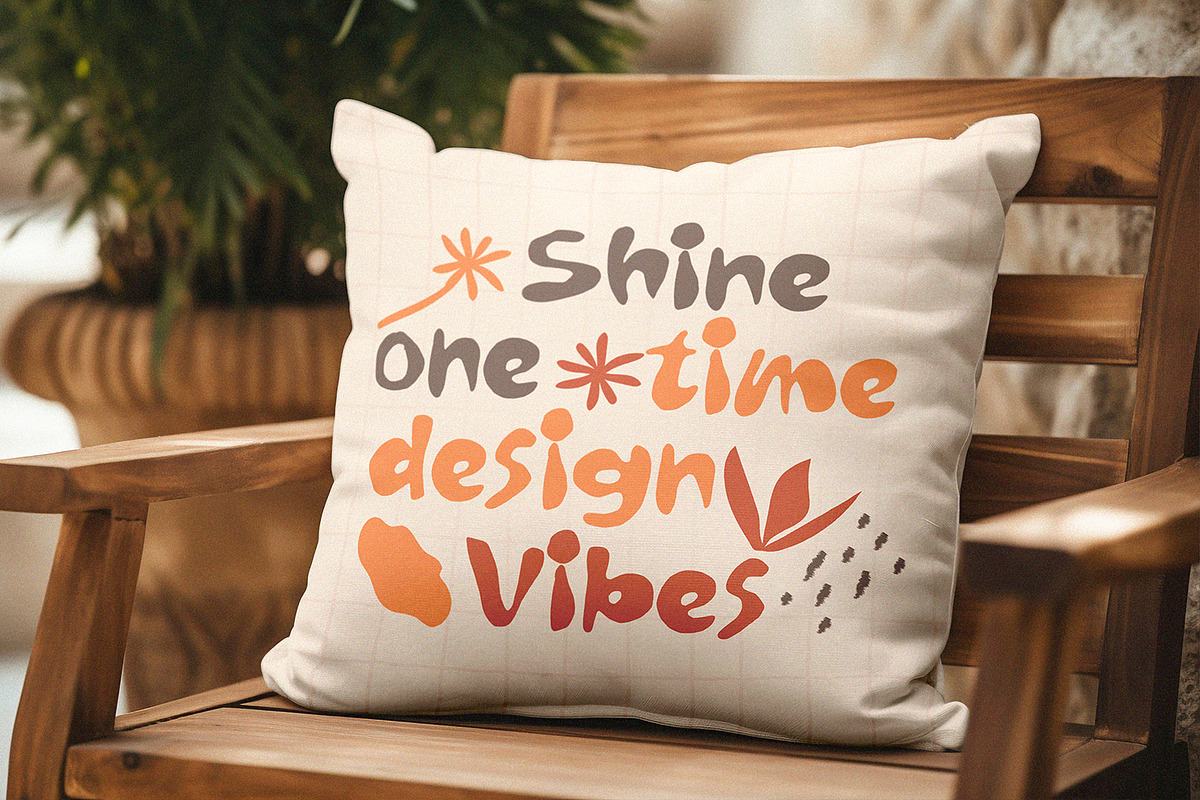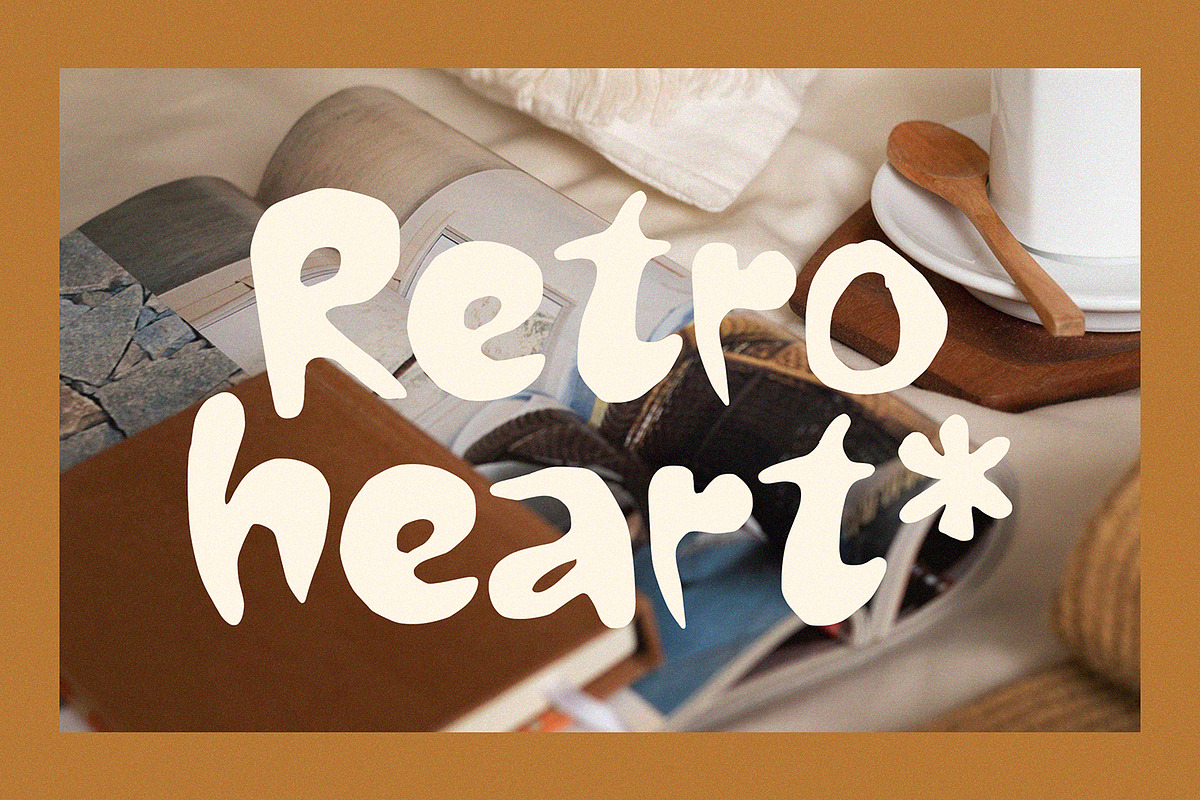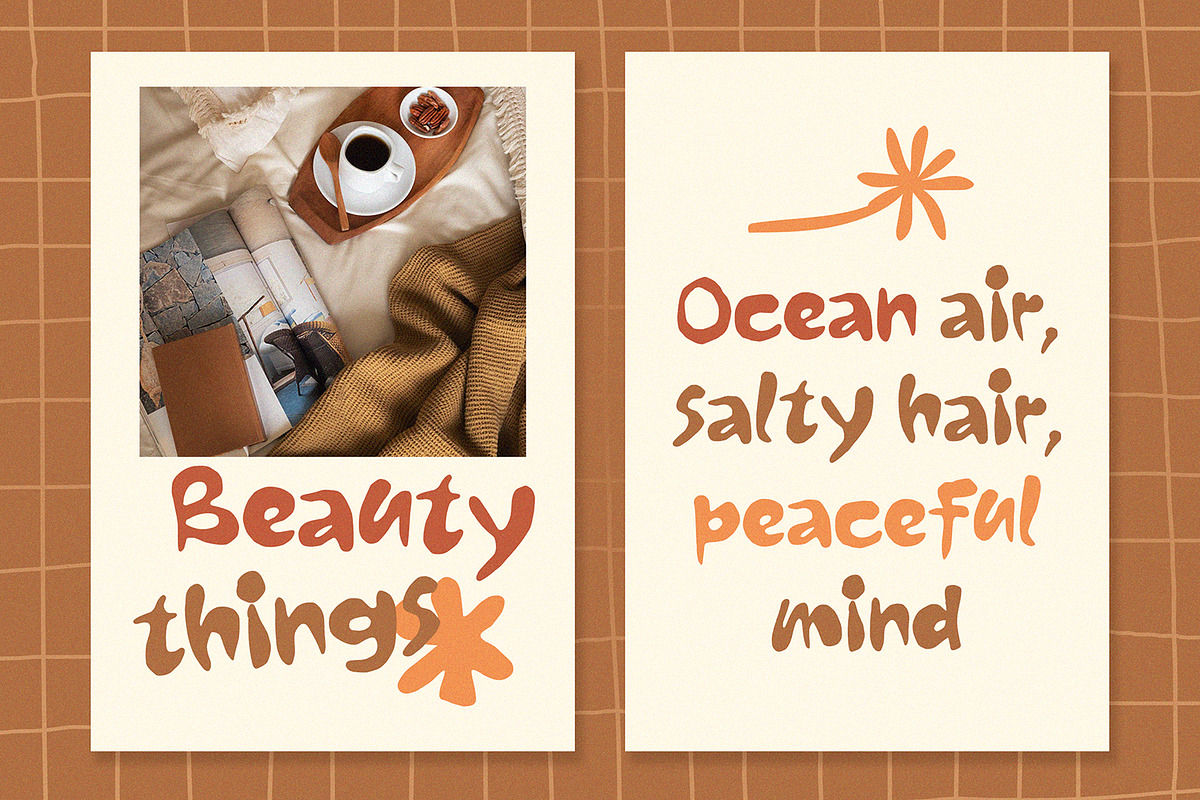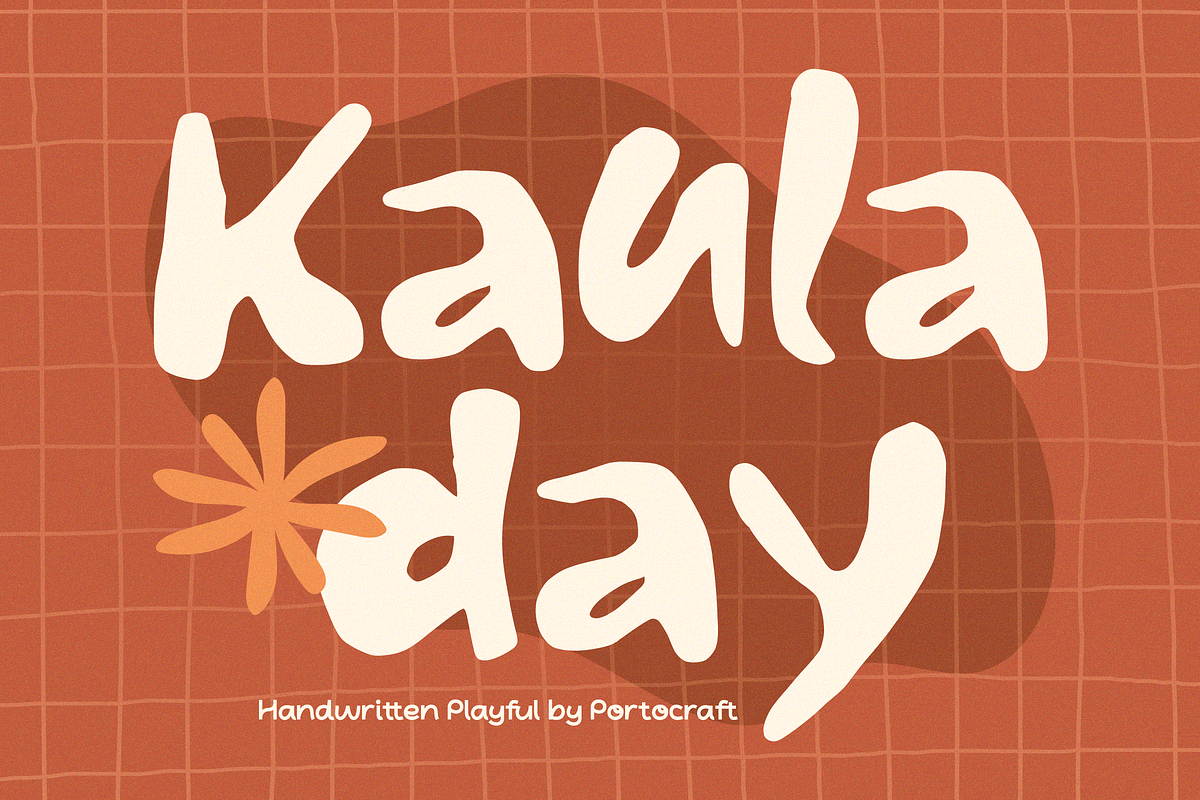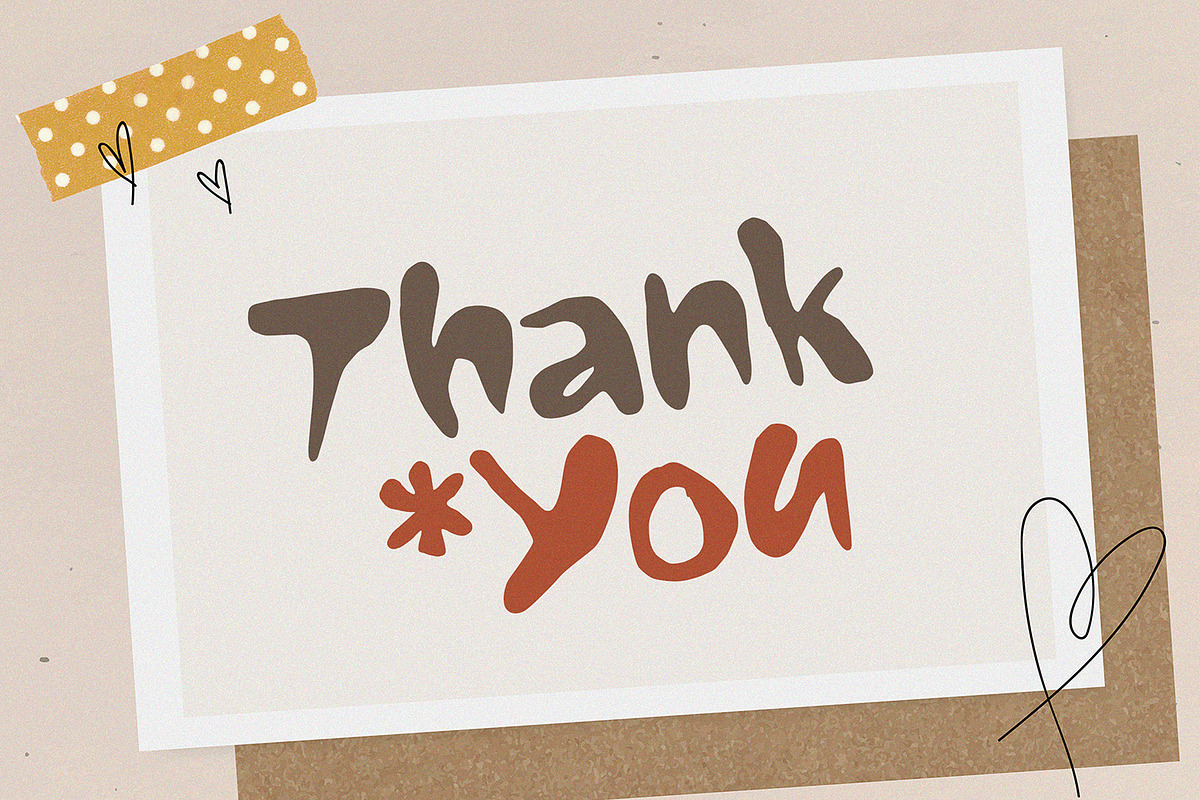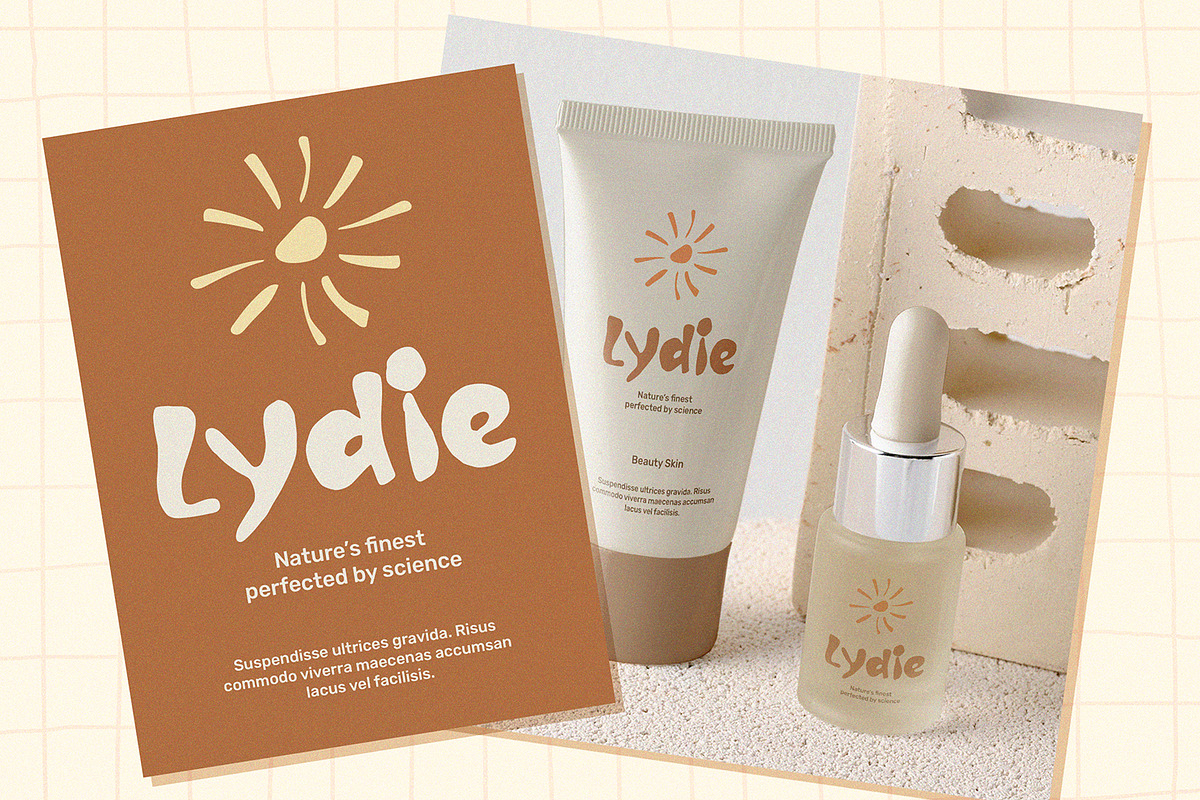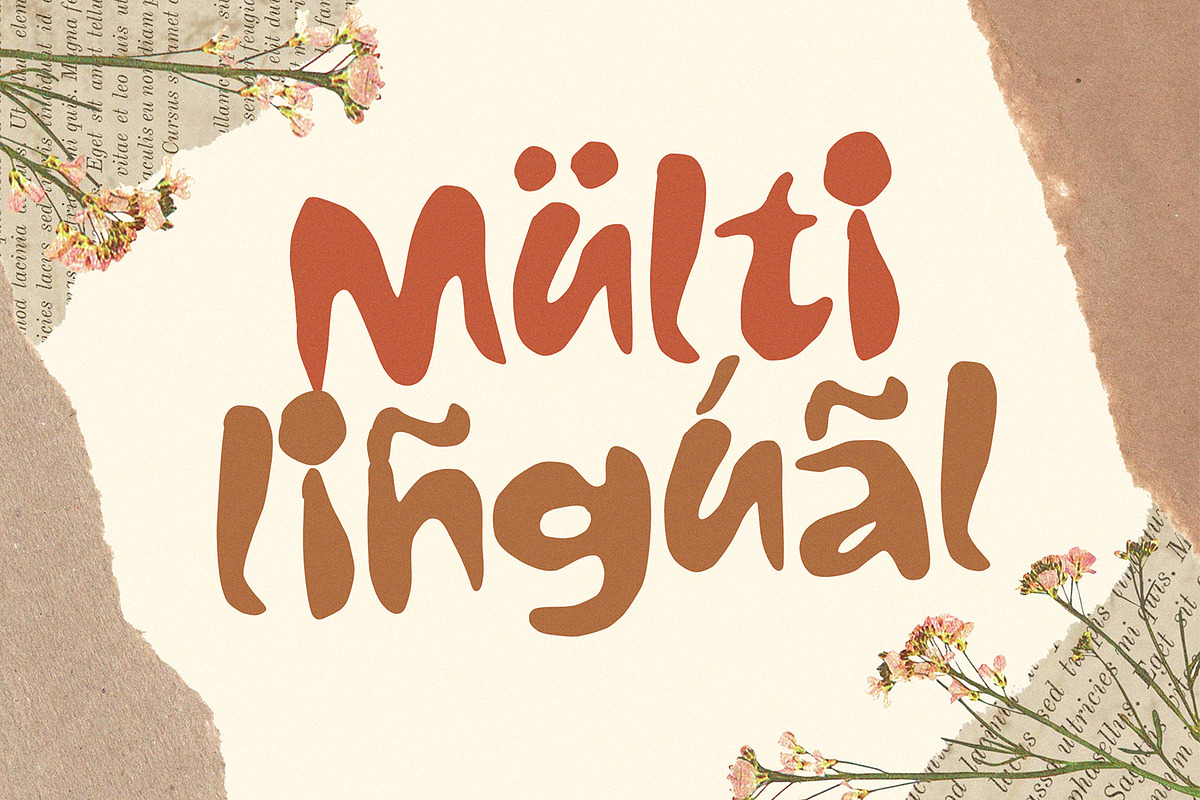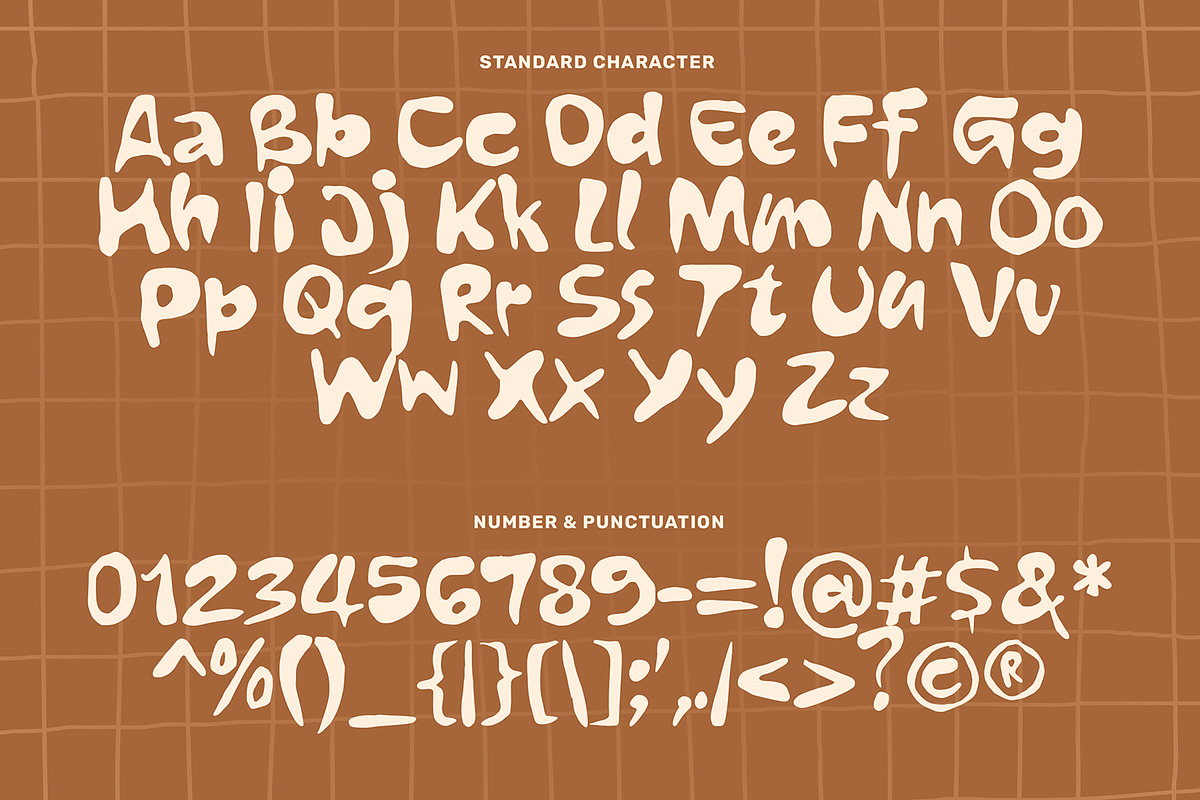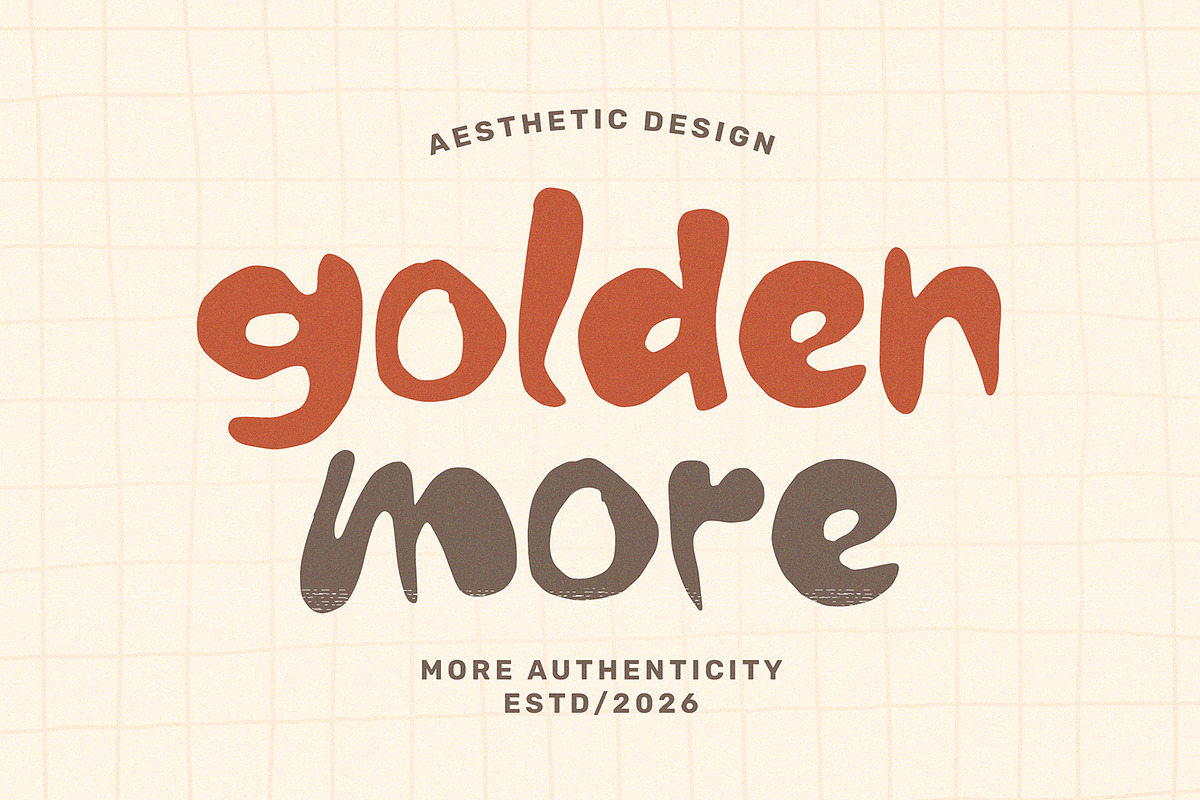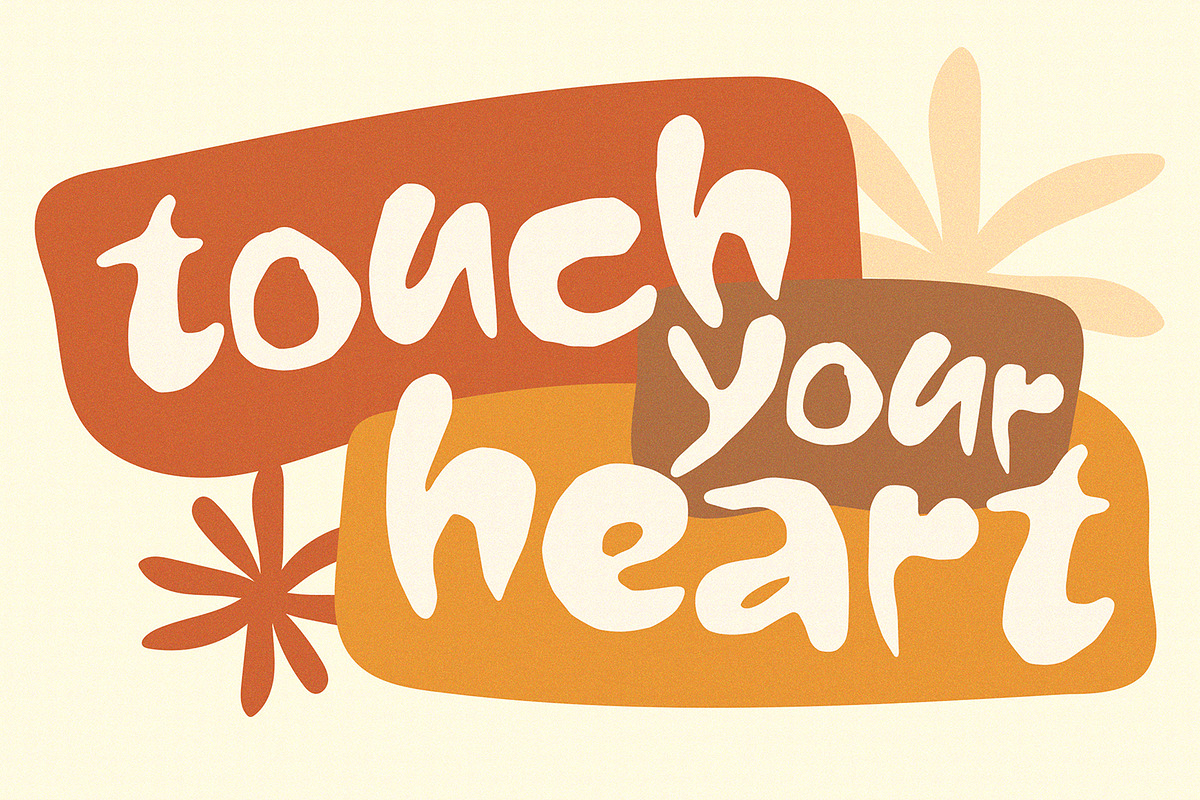
Kaula Day Playful Handwritten
Kaula Day is a playful handwritten display font with bold, rounded, and organic letterforms. It delivers a cheerful, friendly, and relaxed personality, making your designs feel warm and expressive. Inspired by casual handwriting and modern retro vibes, this font is perfect for eye-catching titles and creative projects that need a fun and approachable look.
Kuala Day works beautifully for posters, social media graphics, branding, packaging, quotes, stickers, and lifestyle designs. Its smooth curves and informal style help create designs that feel lively, modern, and full of character.
- Bold handwritten display style
- Rounded and organic letter shapes
- Playful, casual, and friendly look
- Easy to read and visually engaging
- Perfect for modern and retro-inspired designs
- Posters & headlines
- Branding & logo design
- Social media content
- Packaging & product labels
- Quotes & inspirational designs
- Kids, fun, and lifestyle projects
✨ Bring handcrafted beauty and elegance to your designs with Kaula Day Playful Handwritten